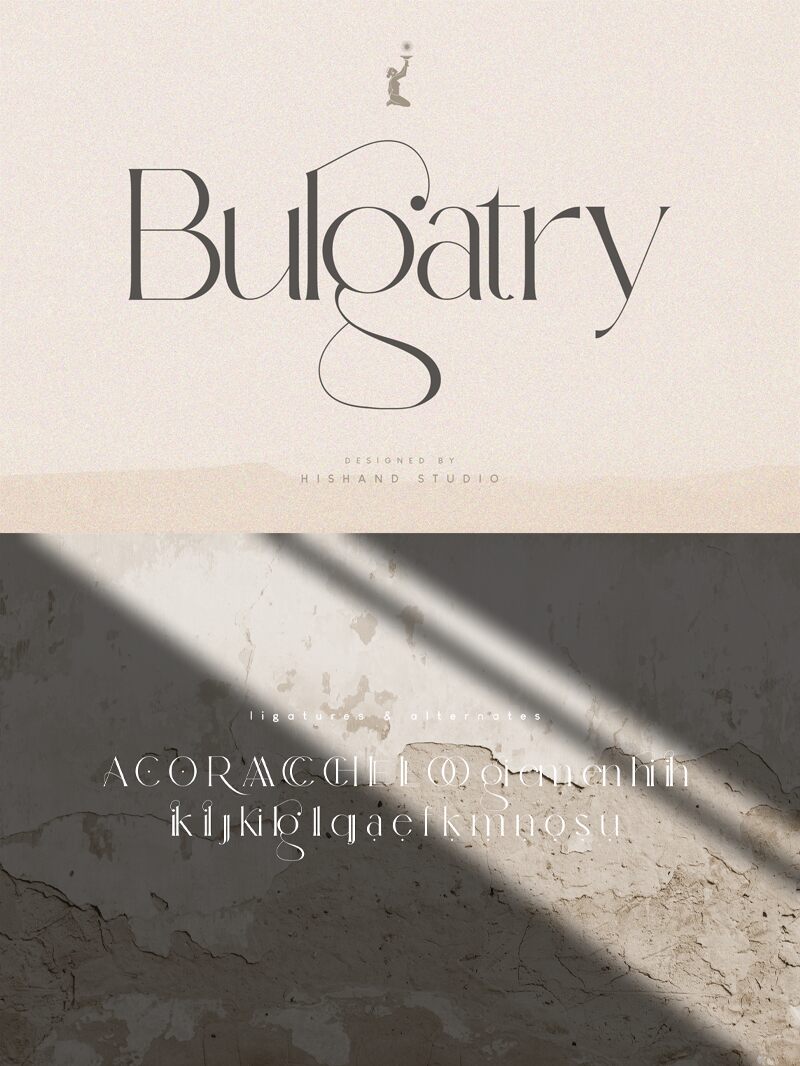
Bulgatry is a captivating serif font that exudes a sense of sophistication and elegance. Its refined, light strokes and distinct serifs create a harmonious balance, offering a timeless aesthetic that can elevate a wide range of design projects. From luxurious editorial layouts to stylish branding, Bulgatry's versatility shines through, seamlessly blending traditional charm with a modern sensibility. This font's refined and distinctive character makes it an ideal choice for designers seeking to imbue their work with a touch of refined sophistication.
Bulgatry's unique features, such as its delicate terminals and subtly flared serifs, lend an air of sophistication and refinement to any design. This font's light weight and graceful curves make it well-suited for applications where a sense of elegance and sophistication is desired, such as in high-end editorial design, luxury product branding, or even in the creation of impactful typographic compositions.